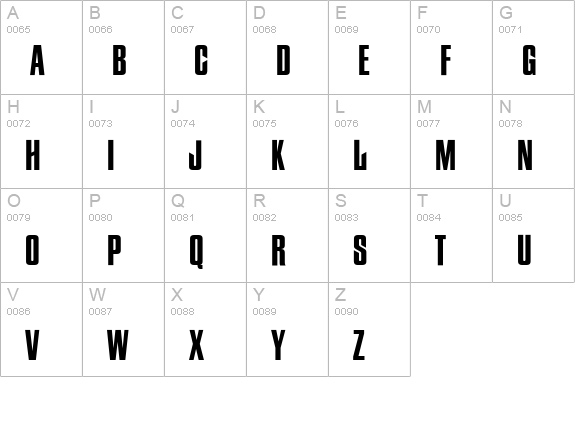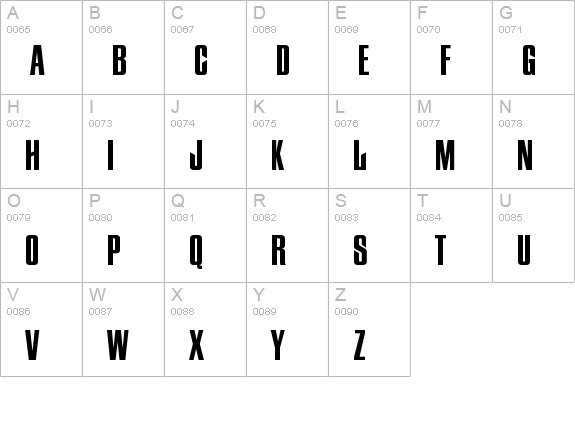
CgFiorello-Condensed Font Details
CgFiorello-Condensed is a distinctive, condensed-width variant in the CgFiorello typeface family \xE2\x80\x94 well suited to design and typography projects.
CgFiorello-Condensed font is a stylish and modern typeface that exudes elegance and sophistication. With its sleek lines and condensed letterforms, this font is perfect for creating a sleek and professional look in your designs. Whether you're working on a logo, website, or print materials, CgFiorello-Condensed font will add a touch of class to your projects. The best part is that CgFiorello-Condensed font is completely free to download at FontsMarket.com. This means you can easily access this beautiful font and use it in your personal and commercial projects without any cost. Don't miss out on this opportunity to elevate your designs with the stunning CgFiorello-Condensed font - download it now and start creating!